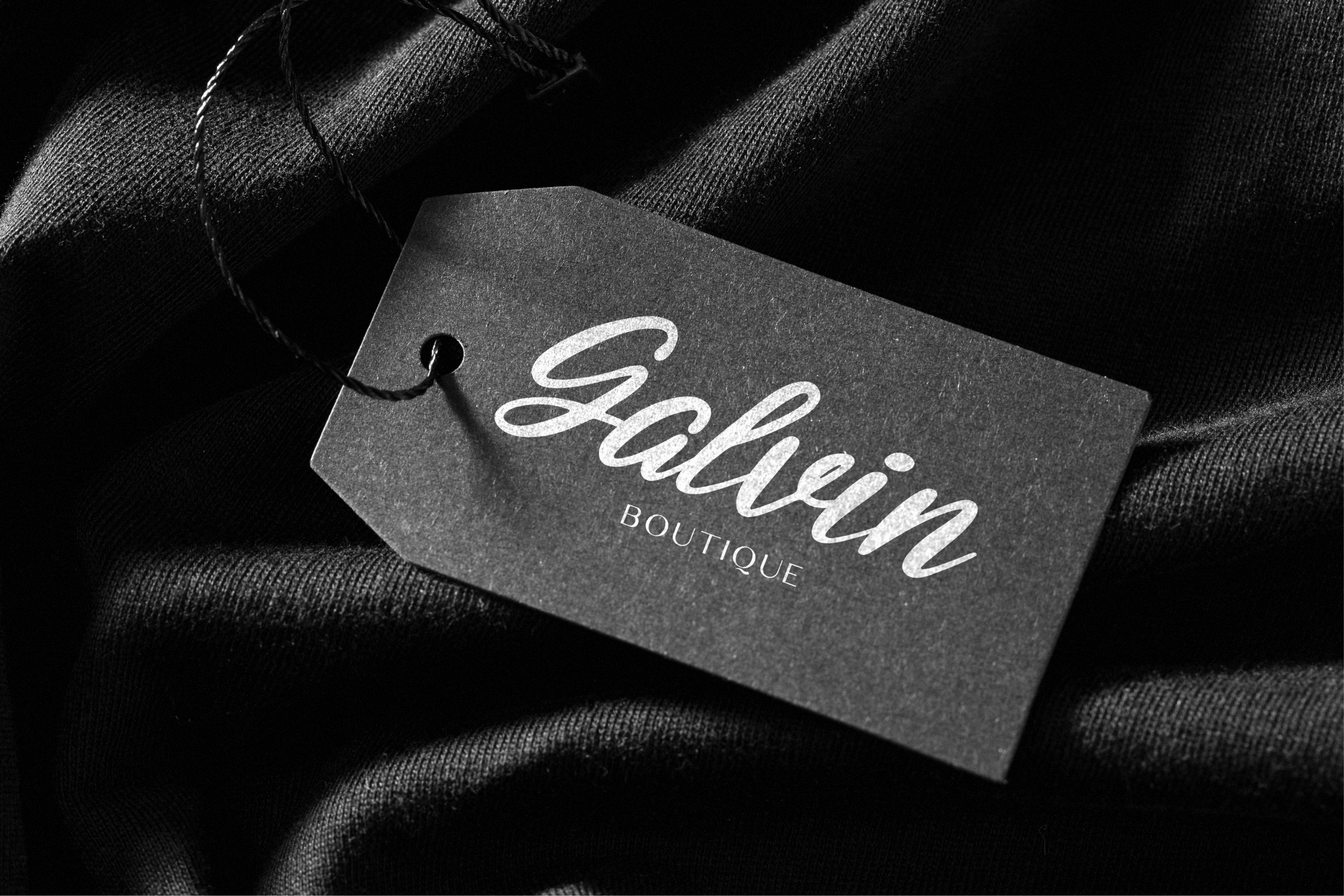
Liquearth Font
Liquearth Script Font
This font feels equally charming and elegant. It looks stunning on wedding invitations, thank you cards, quotes, greeting cards, logos, business cards and every other design which needs a handwritten touch.